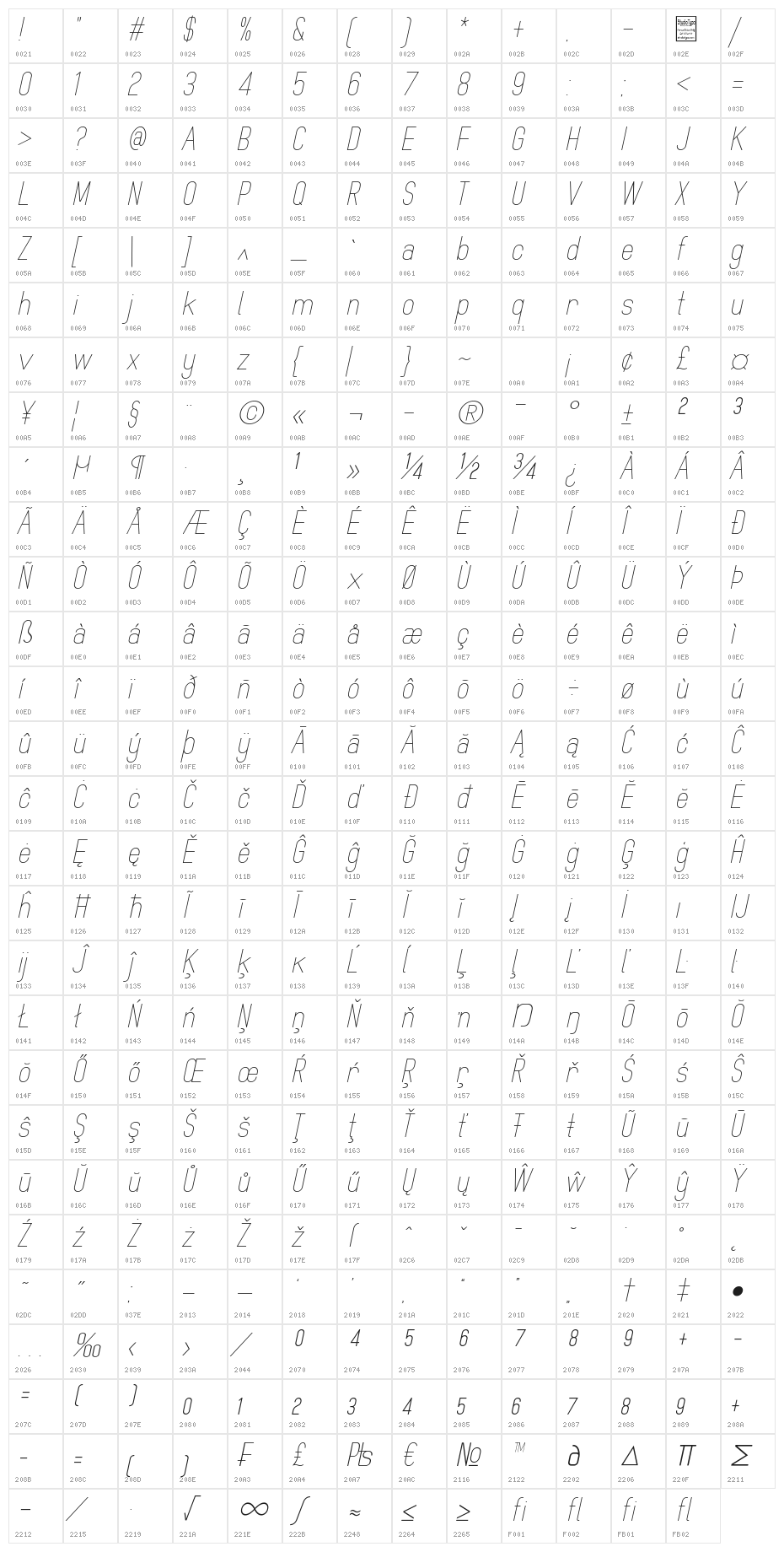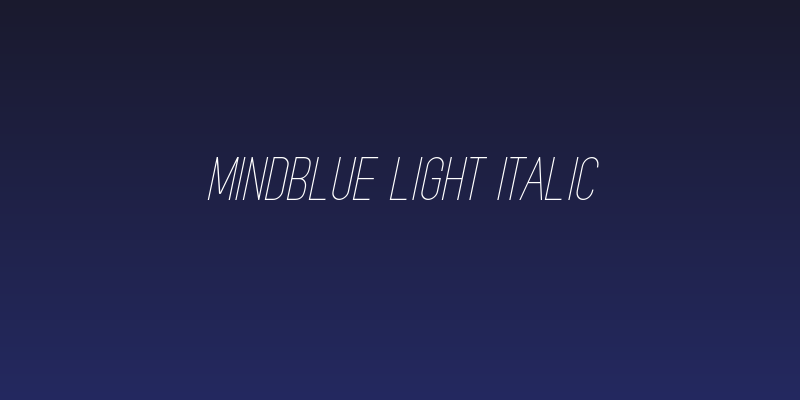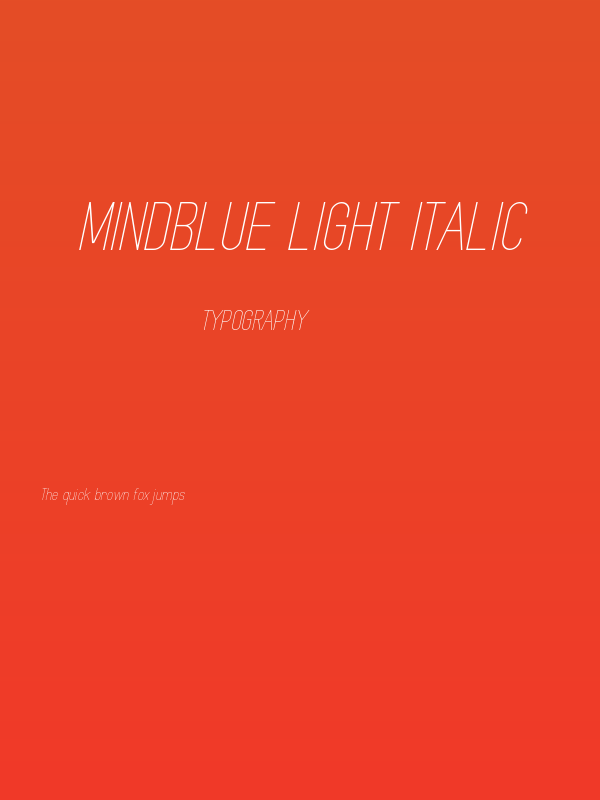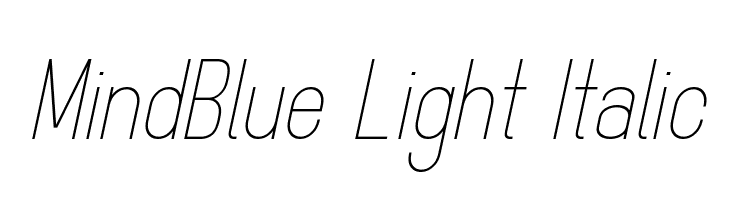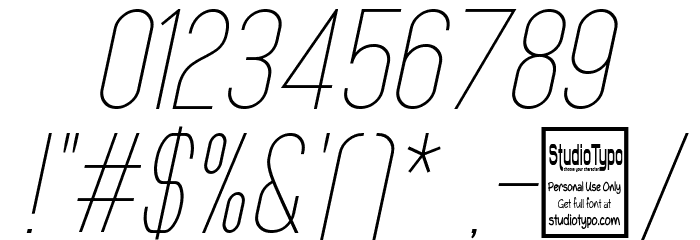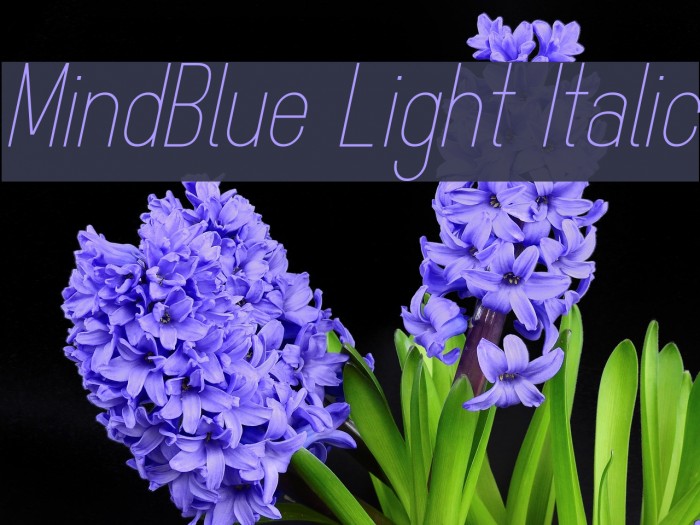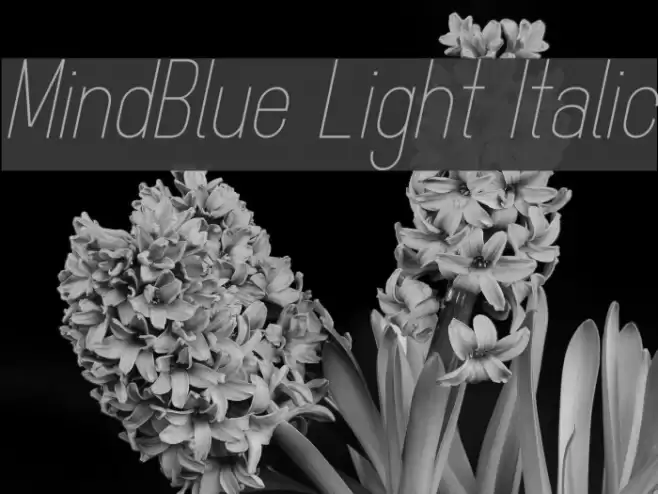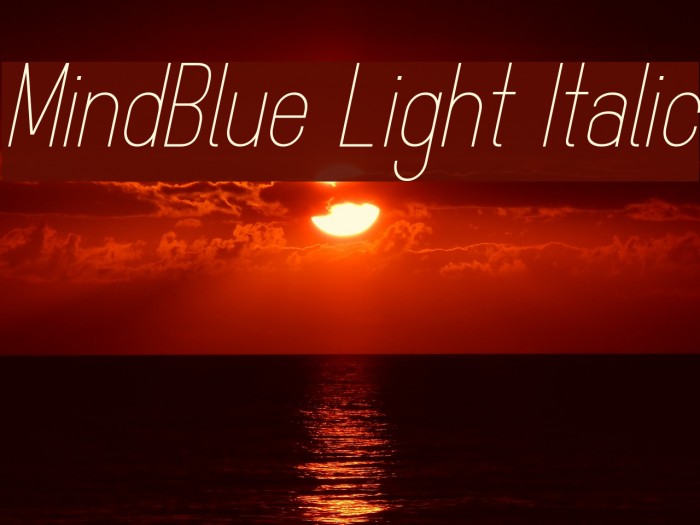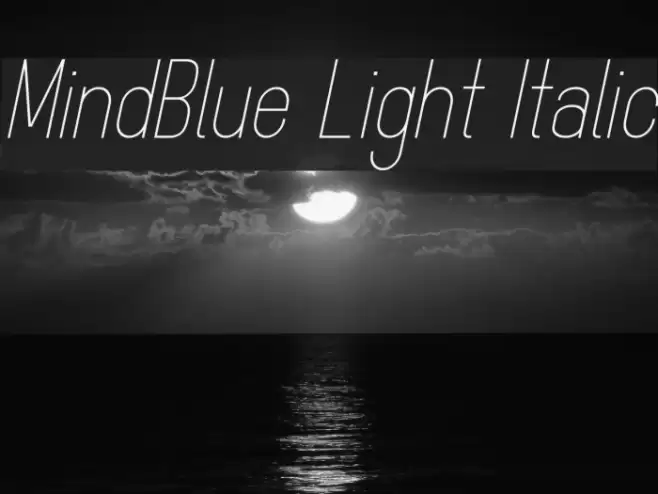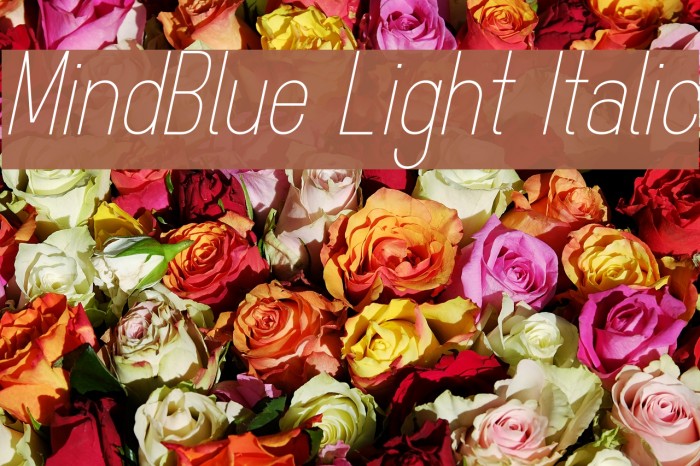
MindBlue Light Italic Font
MindBlue Light Italic Description
This font features a sleek and modern design with a light and airy feel. The characters are elegantly elongated, giving a sense of sophistication and style. The italic slant adds a dynamic and fluid motion to the text, enhancing its contemporary appeal. The thin strokes and minimal contrast between thick and thin lines contribute to its refined appearance. The font maintains a consistent and balanced structure, making it suitable for a variety of design applications. Its clean and crisp lines ensure readability while providing a touch of elegance.
| Use Case | Headlines, Logos, Invitations |
| Proposed Projects | Ideal for fashion magazines, modern branding, elegant invitations, and stylish website headers. |